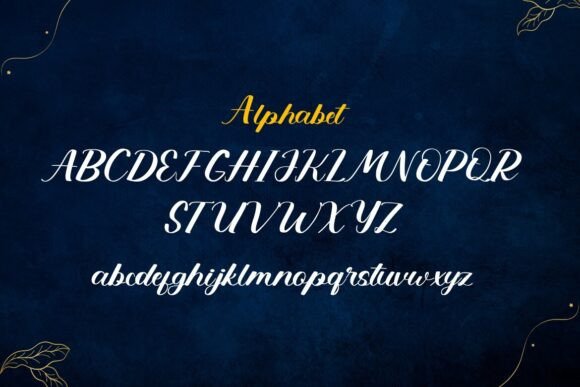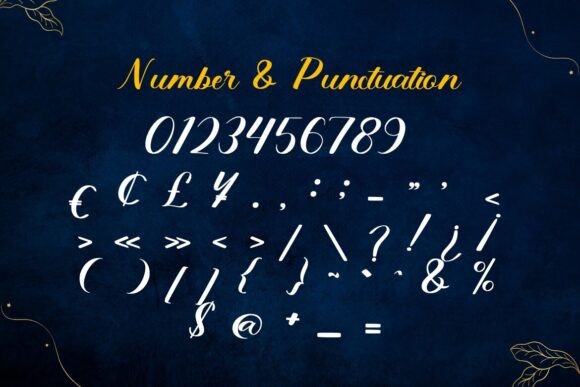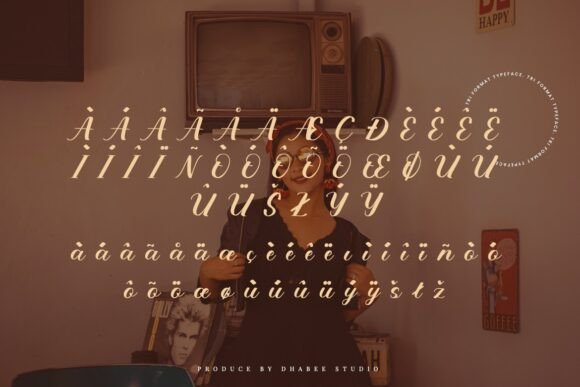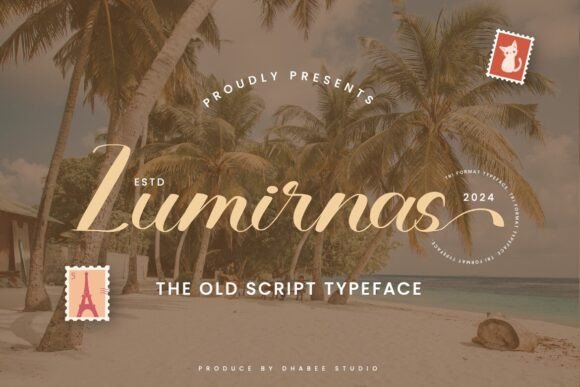
Introduction to Lumirnas Font
Lumirnas is a sophisticated script typeface inspired by timeless elegance.
With smooth curves and a vintage flair, this font is perfect for wedding invitations, branding projects, travel blogs, and luxury packaging Its refined beauty captures a classic yet modern aesthetic.
Lumirnas Font offers exceptional quality and versatility, making it a valuable addition to your design toolkit. Whether you’re creating for personal projects or commercial use, Lumirnas Font delivers professional results.